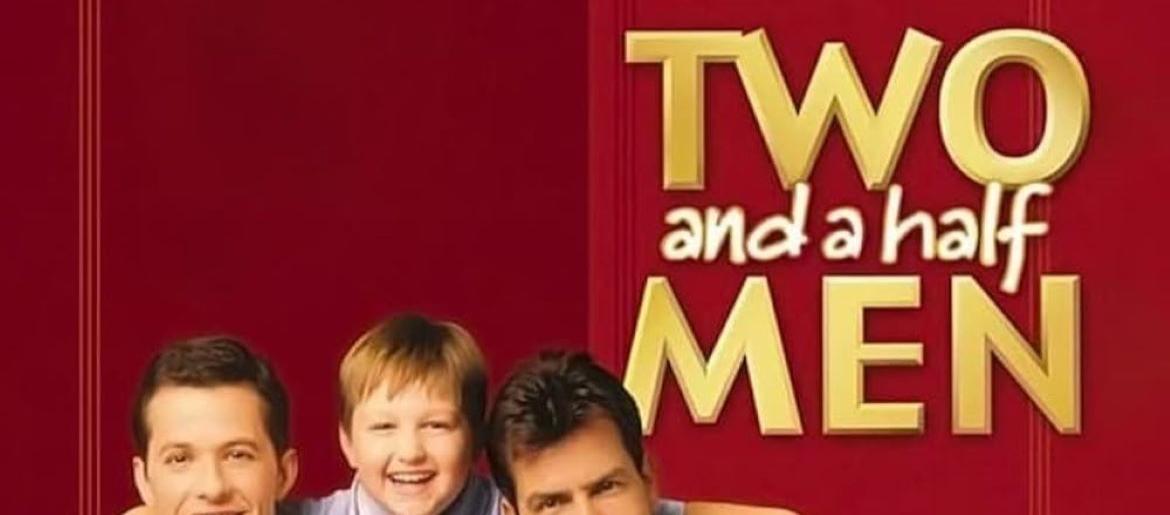
Two and a Half Men Font
Two and a Half Men font reflects the playful yet stylish vibe of the popular sitcom. With clean, bold lettering and slightly quirky design, it captures the show’s mix of sharp humor and laid-back charm. Perfect for party invitations, posters, or any lighthearted design, this font adds comedy, personality, and modern flair to your creative work.
About Two and a Half Men
Two and a Half Men is an American sitcom that premiered in 2003. The series follows brothers Charlie and Alan Harper, along with Alan’s son Jake, as they navigate hilarious family dynamics, relationships, and everyday chaos in Malibu.